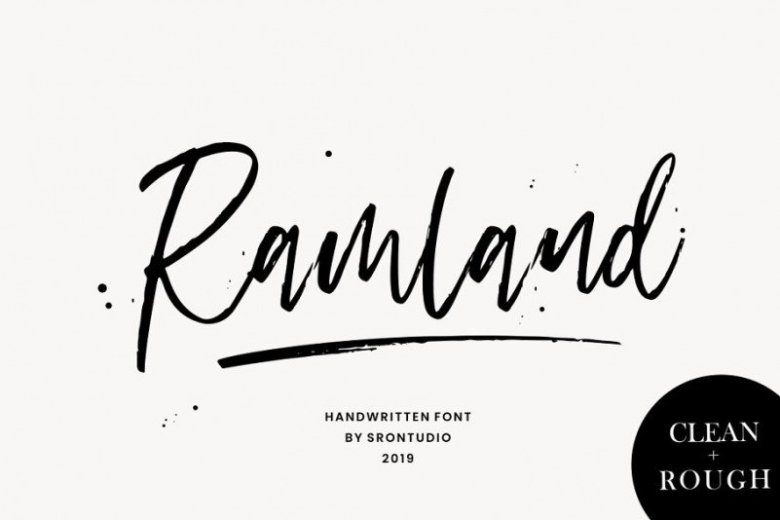
Ramland Handwritten Font
Start a new day with a romantic brush script font. Introducing Ramland Font. It is designed and shared by Sronstudio. Ramland Handwritten Font is a natural handwritten font, this font Is perfect for logo, invitation, stationery, wedding designs, social media posts, advertisements, product packaging, product designs, label, photography, watermark, special events or anything.